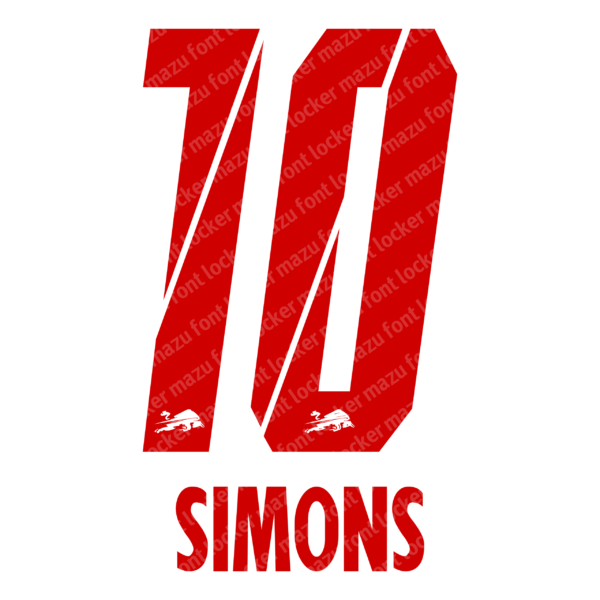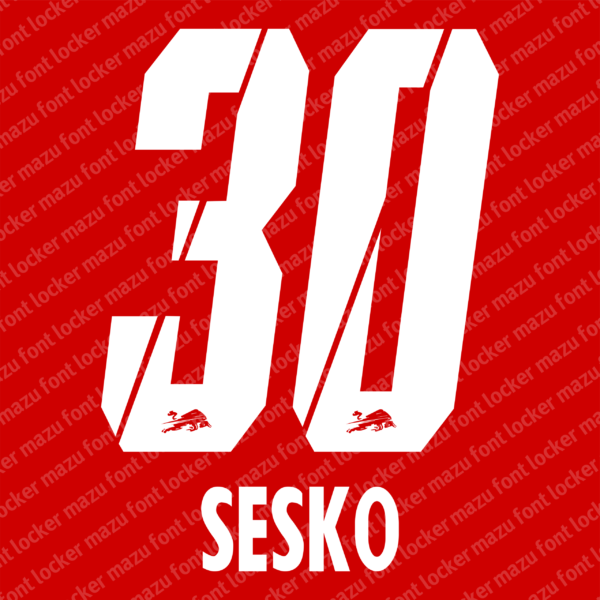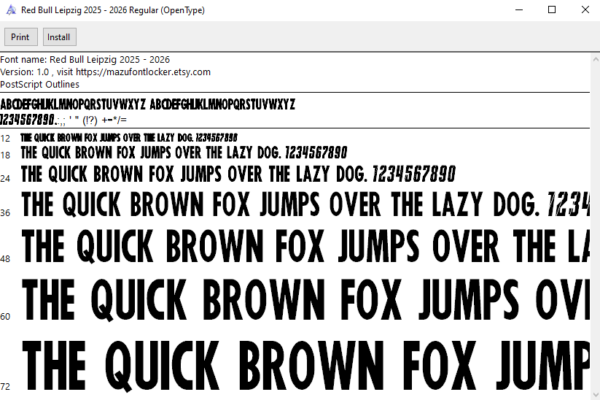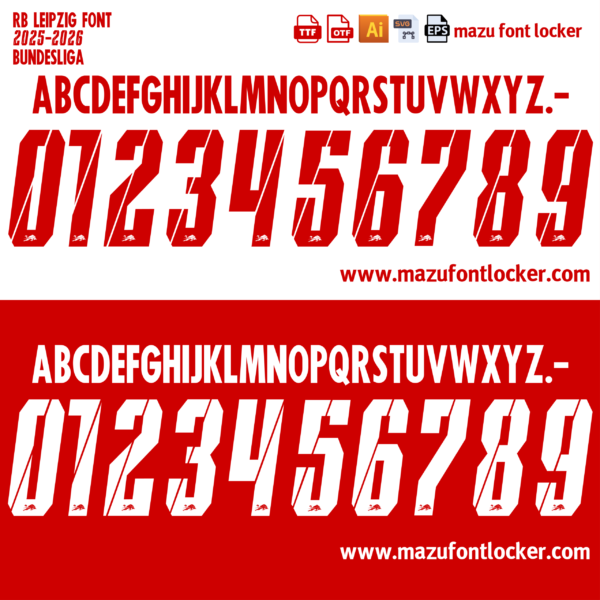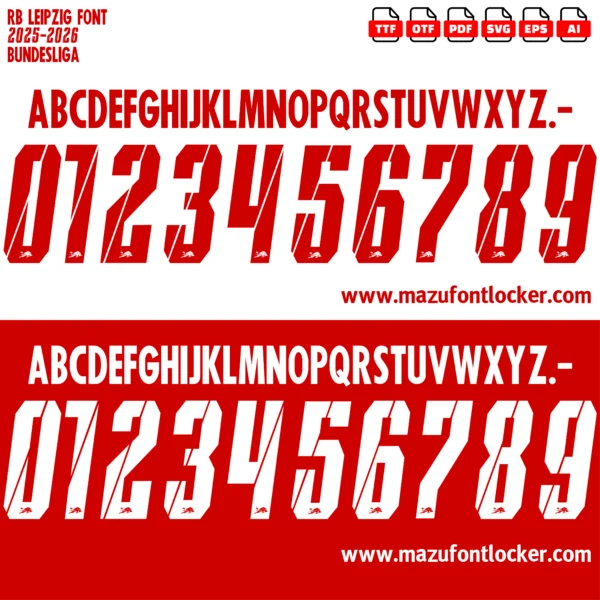
RB Leipzig 2025-2026 Font Vector – Epic Roten Bullen Masterpiece
This premium font captures the commanding, majestic, iron-willed war-machine lettering that embodies the unstoppable Leipzig spirit — delivering raw German industrial fire, explosive modern ambition, unbreakable resilience, tactical dominance, and legendary Red Bull warrior grit that made Europe tremble.
RB Leipzig 2025-2026 Font Vector – Authentic Die Roten Bullen Typeface
The RB Leipzig 2025-2026 Font Vector is a premium typeface that accurately recreates the official match lettering worn by RB Leipzig during the 2025-2026 season. This high-quality vector font kit captures the bold, modern, and dynamic typography that represents the ambition, energy, and rising power of Die Roten Bullen.
Designed for professional designers and passionate RB Leipzig fans, the RB Leipzig 2025-2026 Font Vector delivers perfect authenticity for creating realistic jersey mockups, fan merchandise, matchday posters, social media graphics, and club content. It pairs beautifully with the iconic red and white kit featuring the famous RB Leipzig crest.
This font stands out because of its sharp vector precision and strong club identity. Every letter and number is crafted to match the exact style used on the players’ shirts during the 2025-2026 season. Whether you are making realistic kit templates or exciting Die Roten Bullen content, the RB Leipzig 2025-2026 Font Vector gives your designs that authentic Leipzig look.
The letterforms in the RB Leipzig 2025-2026 Font Vector are tall, bold, and highly readable. The strokes have a strong, clean weight with excellent edge definition that looks powerful on the back of jerseys while maintaining modern German club spirit and aggressive energy.
• Full uppercase A–Z and numbers 0–9 in authentic RB Leipzig 2025-2026 style
The RB Leipzig 2025-2026 Font Vector is an independently designed typeface package. It is carefully crafted to replicate the official shirt lettering style of the 2025-2026 season. This font kit is perfect for creative projects, fan edits, nostalgic jersey designs, and custom football graphics.